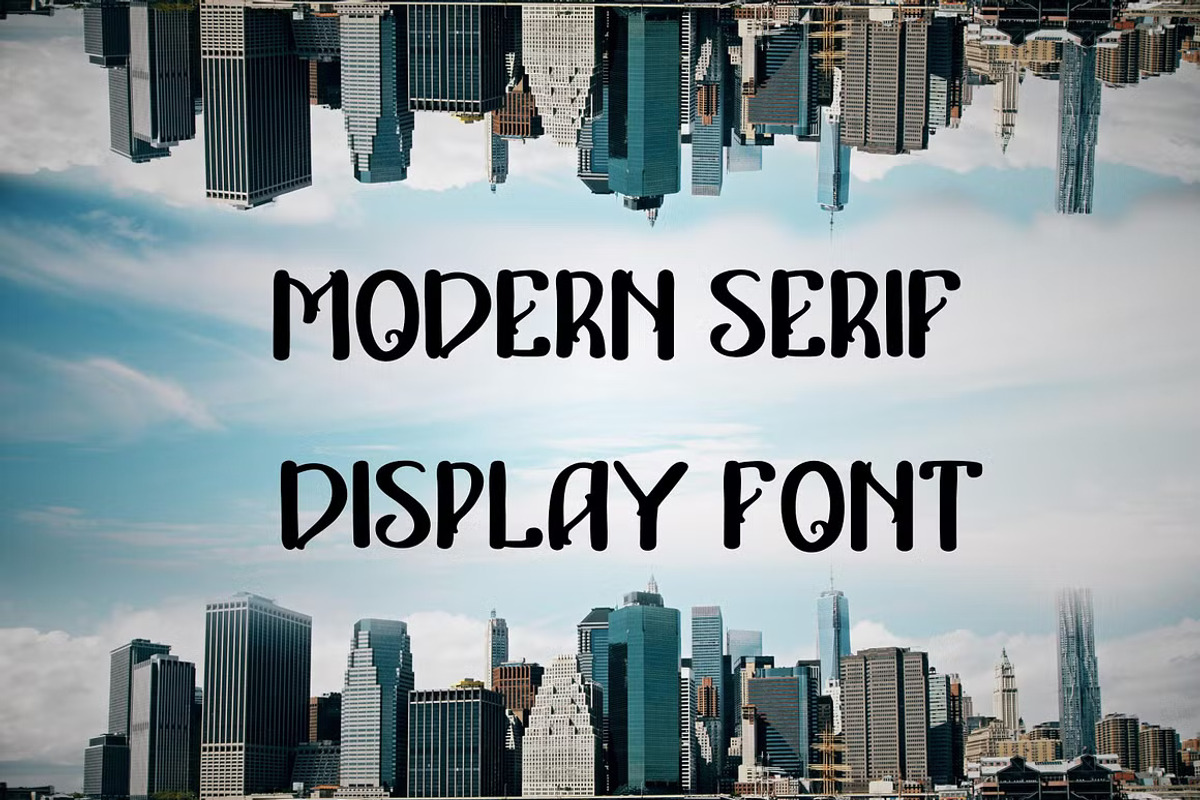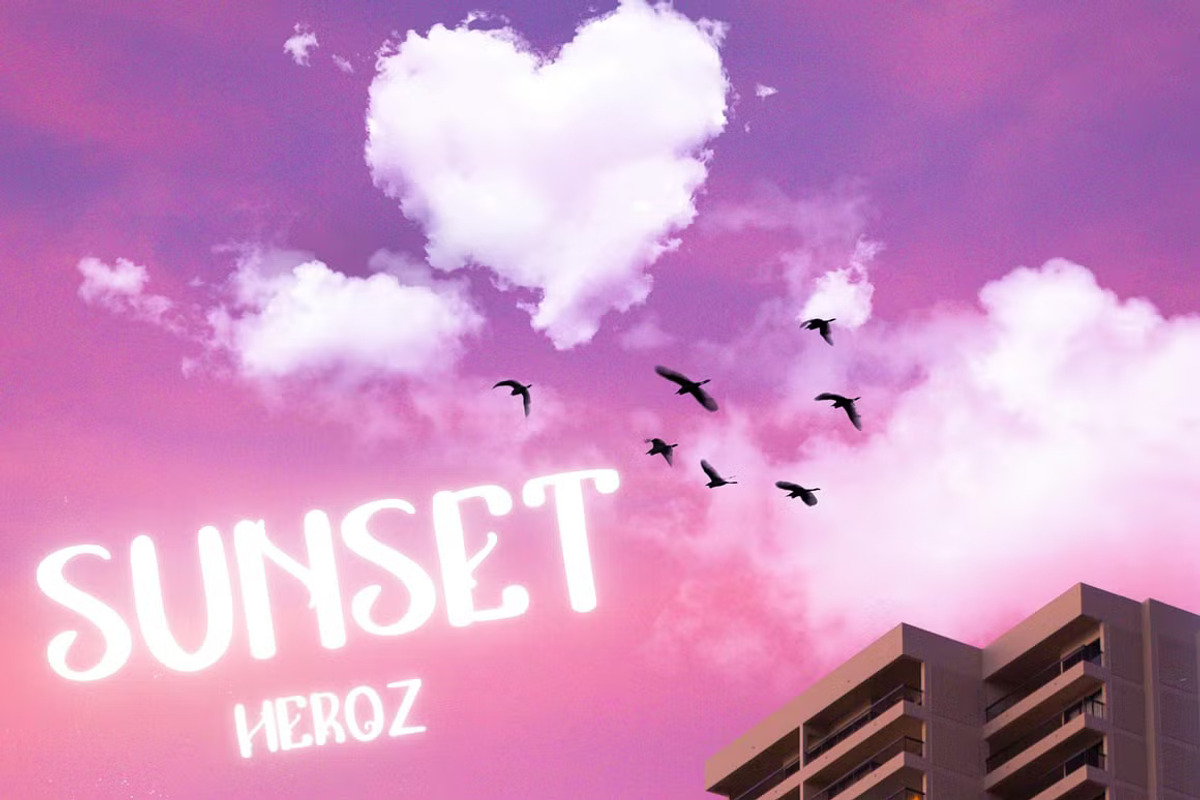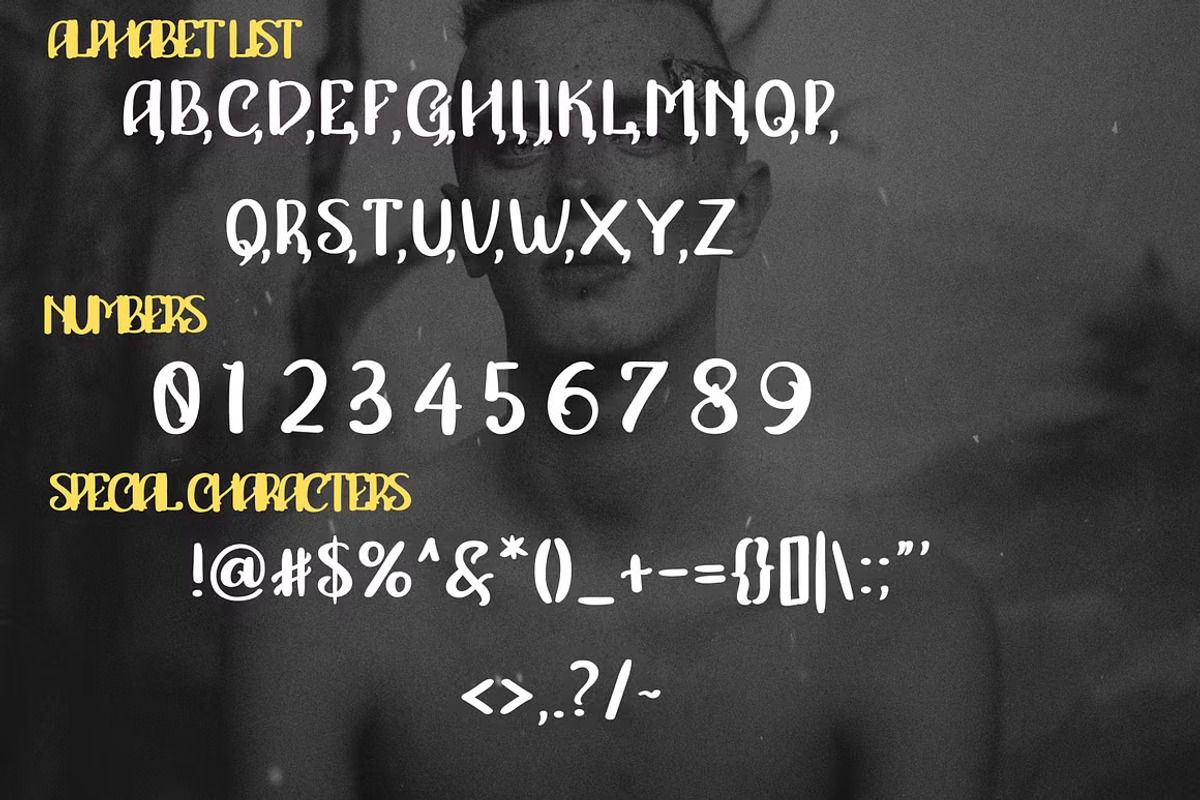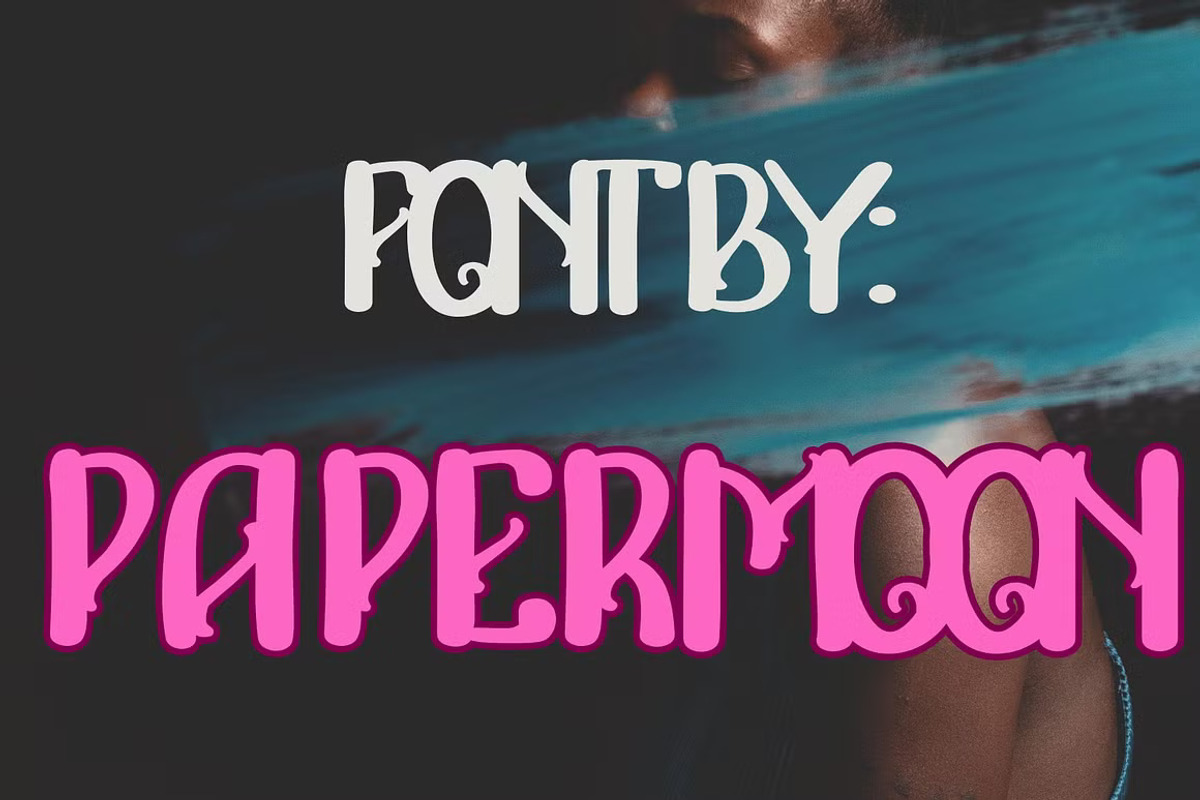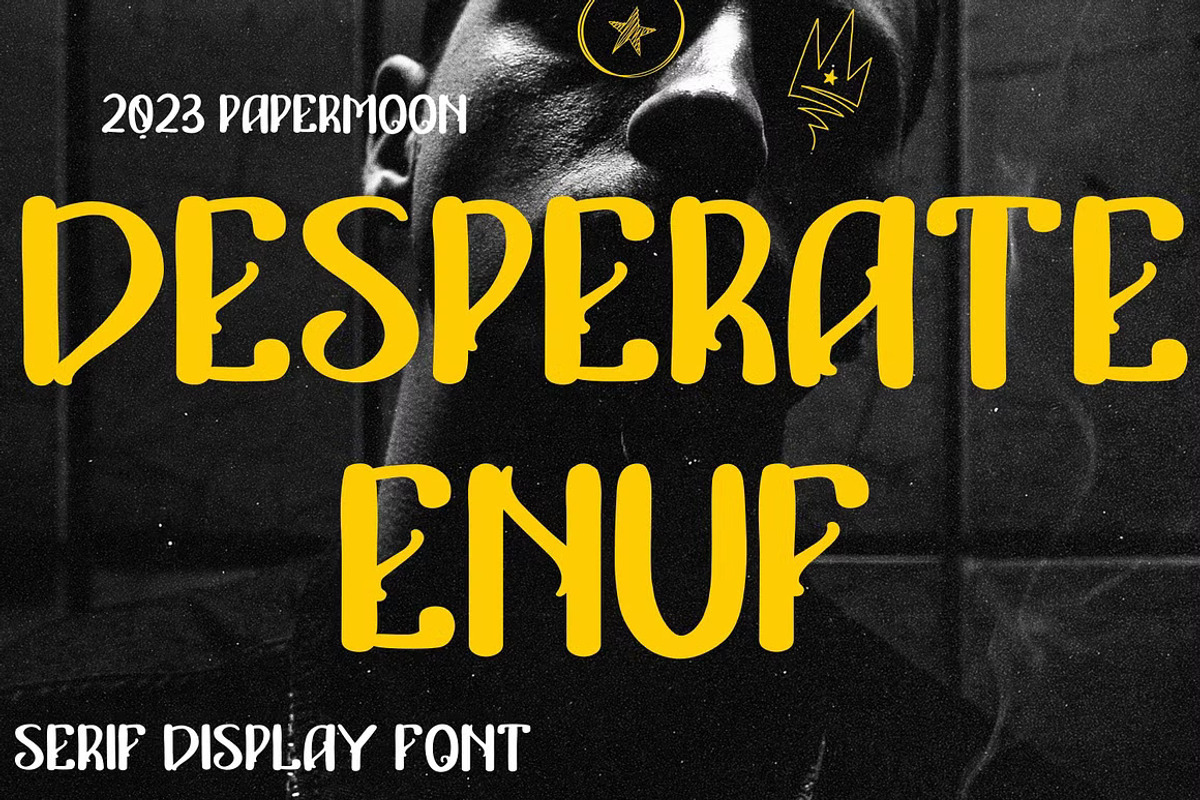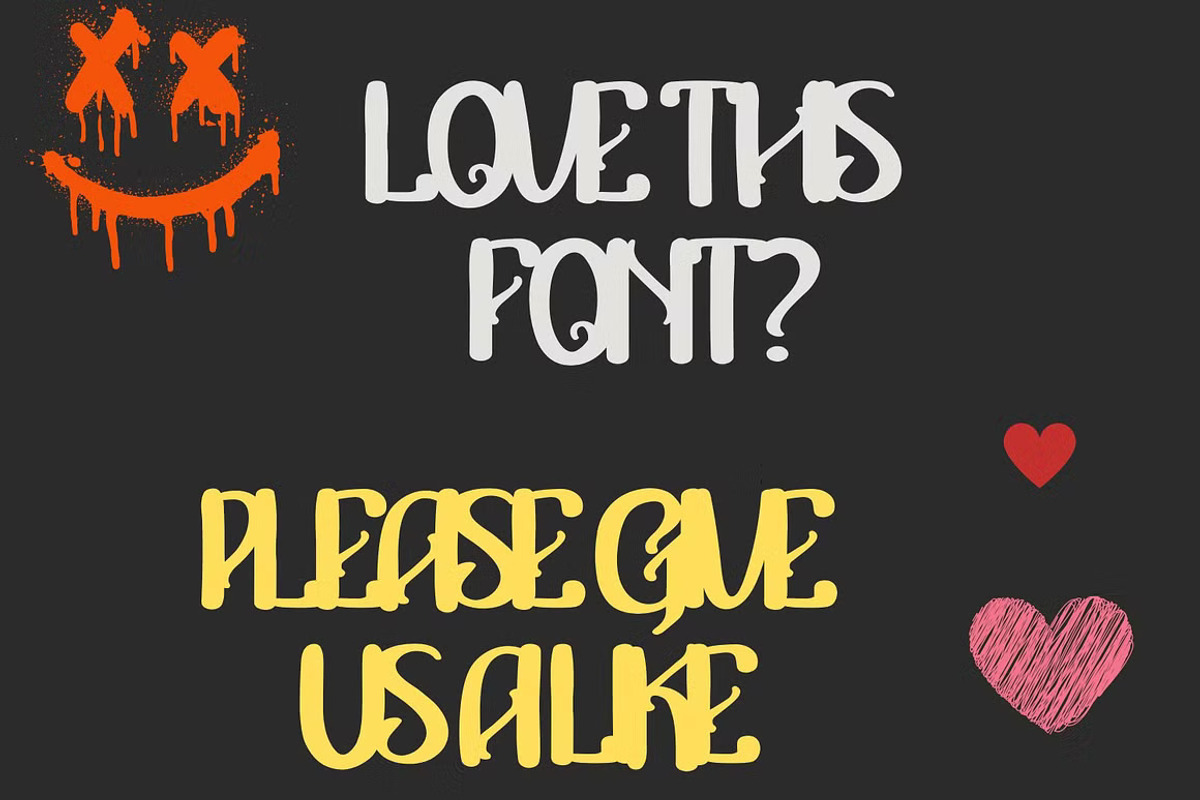
Desperate Enuf: Stylish Display Font
Introducing Desperate Enuf: A Bold Display Typeface for Dynamic Designs
We’re absolutely thrilled to unveil Desperate Enuf—a bold and striking display typeface designed to ignite your creative projects!
Desperate Enuf offers a fresh and dynamic look, making it the perfect choice for bold, impactful designs. This versatile font package includes:
Complete character set from A to Z Numerals and punctuations (OpenType Standard) for comprehensive use Accents for multilingual support, ensuring global reach Stylistic alternates for added flair and creative versatility With Desperate Enuf, the design possibilities are truly limitless. Elevate your work with bold posters, eye-catching logos, striking branding, and more using this dynamic and expressive typeface!